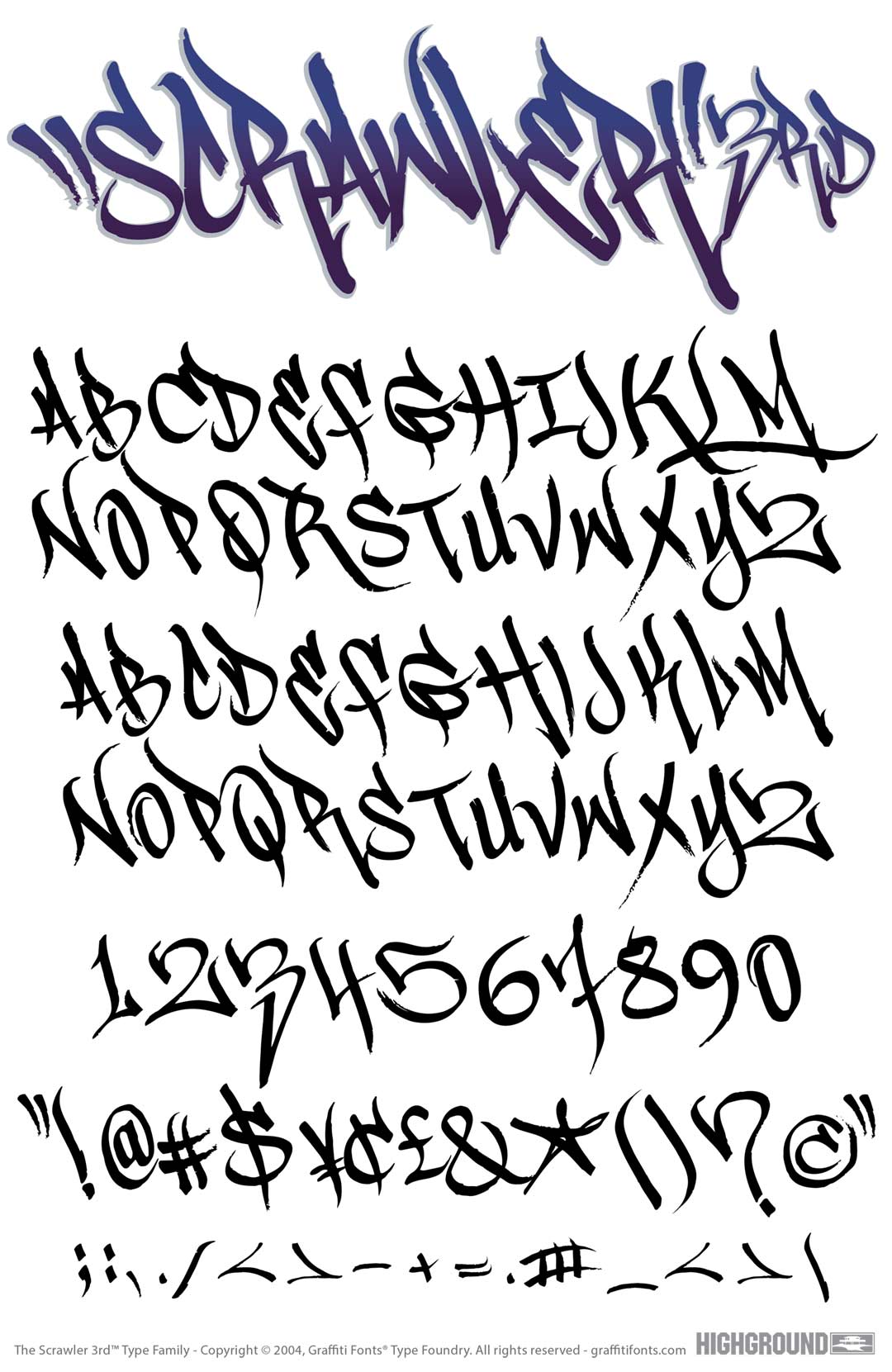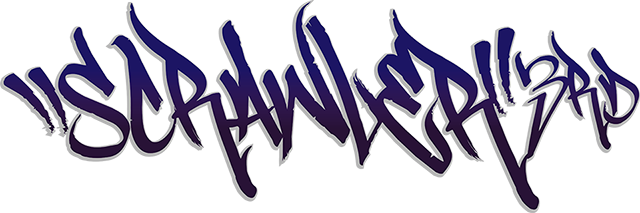
Scrawler 3rd Font
Scrawler 3rd Title Image
Scrawler 3rd Graffiti Alphabet
Scrawler 3rd Graffiti Font Family
This font is an add-on to our "Scrawler" font family but can also be used as a stand-alone typeface. These additional 61 rough tag style graffiti characters can be mixed and matched with the original Scrawler font add more options & variety.